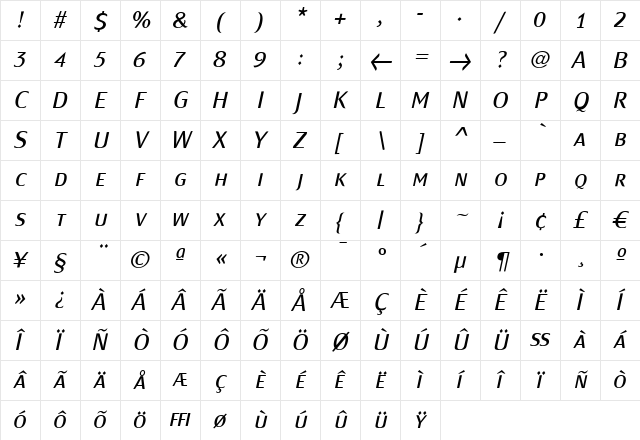
Complete MondialPlus Light Italic Caps Regular glyph index. Displaying only characters natively supported by MondialPlus Light Italic Caps Regular font.
MondialPlus Light Italic Caps is a composed and adaptable typeface that performs quietly and consistently across a wide range of design contexts. The slanted form adds forward momentum and visual energy. Its slender proportions lend an understated elegance to any composition.
Pro Tip: Use MondialPlus Light Italic Caps for emphasis, pull quotes, and subheadings where its slanted energy can add rhythm to the layout.